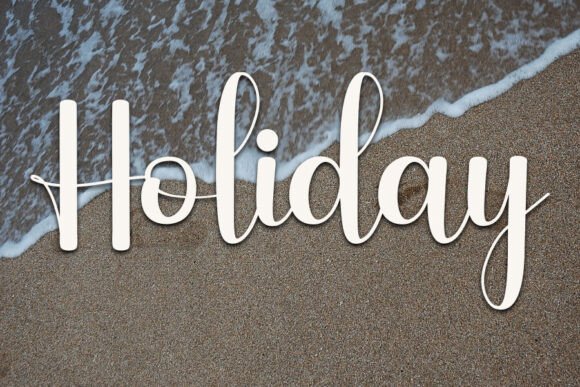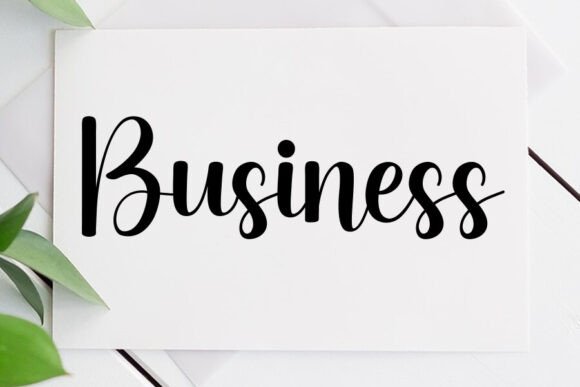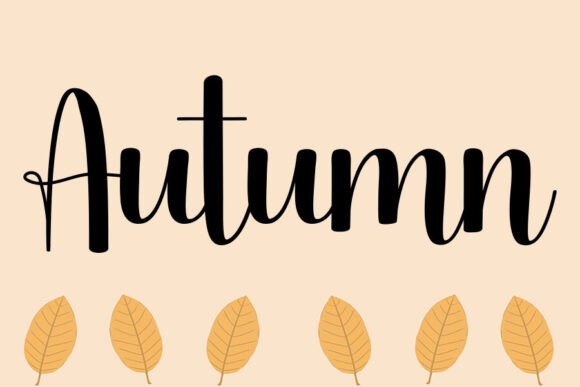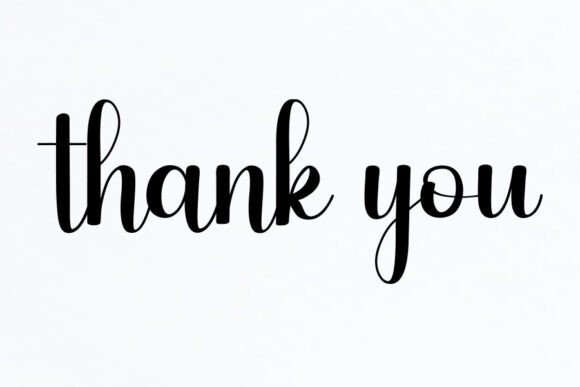
The Sweetest Touch: Introducing Baking Font
As a designer, have you ever stared at a blank page, waiting for inspiration to strike? It’s a moment we’ve all been in – the creative block, the blank slate, the endless possibilities. And then, it happens. A spark of creativity ignites, and you’re off and running. For me, it’s often when I’m browsing through typography collections, searching for the perfect font to elevate my design. And that’s where I discovered the sweet and cursive Baking Font.
Baking Font is a gentle handwritten font designed to add a touch of joy and romance to any project. Its casual yet elegant feel makes it perfect for branding, logos, wedding designs, greeting cards, fashion lookbooks, and marketing promotions. Whether you’re looking to add a whimsical touch or a sophisticated flair, Baking Font is sure to bring your designs to life.
- Font Family: Baking Font is a unique font family designed specifically for baking and culinary-related content, making it perfect for recipes, food blogs, and cooking websites.
- Character Count: The font family includes a wide range of characters, including uppercase and lowercase letters, numbers, punctuation marks, and special characters, totaling over 800 glyphs.
- Unique Characteristics: Baking Font features a distinctive, hand-drawn design with subtle imperfections, giving it a warm and inviting feel that’s perfect for cooking and baking-related content.
Baking Font Review
Overall, I’m quite pleased with the Baking Font. Here are some of its highlights: ✨
- Unique design: The font has a charming, handwritten feel that’s perfect for baking-related projects or any application that requires a touch of warmth.
- Legibility: The font is easy to read, even at smaller sizes, making it suitable for a wide range of applications.
- Customization options: The font comes with a variety of customization options, allowing you to adjust the font’s size, color, and other attributes to suit your needs.
- Limited character set: The font’s character set is limited, which may make it difficult to use in certain applications that require a wide range of special characters.
- Not suitable for body text: While the font is great for headings and titles, it may not be the best choice for body text due to its informal, handwritten feel.
- May require additional styling: Depending on the application, you may need to add additional styling to the font to make it look its best.
Overall, I think the Baking Font is a great choice for projects that require a unique, warm feel. While it may have some limitations, its strengths make it a valuable addition to any designer’s toolkit.
Tips for Getting the Most Out of Baking Font
Here are some tips for getting the most out of Baking Font:
- Experiment with different font sizes and styles to find the perfect look for your project.
- Combine Baking Font with other fonts for a unique and creative look.
- Use Baking Font for titles, headings, and other emphasis text to make your project stand out.
Baking Font is perfect for:
- Food and beverage branding and marketing.
- Cookbooks and recipe websites. Alternatives to Baking Font for Designers
Great Vibes Font is a modern, elegant script font perfect for creating a friendly and approachable atmosphere. It’s ideal for use in titles, headings, and quotes where a touch of sophistication is needed.
Compared to Baking Font, Great Vibes Font has a more refined and polished look, making it suitable for a wider range of designs, from wedding invitations to luxury brand logos.
Carolyna Pro Font is a stylish and versatile script font that works well for creating a sense of elegance and sophistication. It’s perfect for use in high-end branding, advertising, and editorial design.